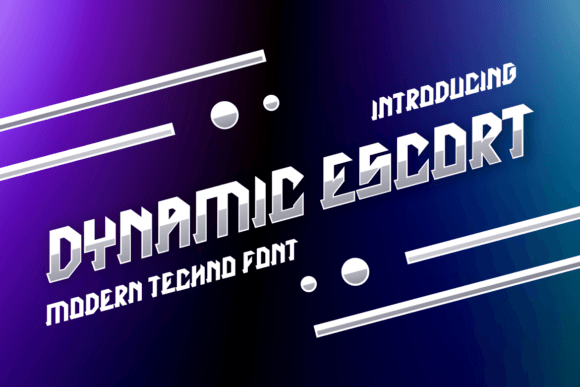
Dynamic Escort: The Revolutionary Font for Creating an Unforgettable Brand Presence
In a world clamoring for attention, your brand needs a voice that cuts through the noise, leaving an indelible mark on your audience's minds. Dynamic Escort, the remarkable display font, empowers you to craft a powerful brand identity that captivates and mesmerizes.
Step into the spotlight with Dynamic Escort, a font that exudes boldness and audacity. Its sharp, geometric lines command attention, while its sleek curves add a touch of sophistication. Whether you're designing product packaging, creating a captivating logo, or crafting a striking poster, Dynamic Escort will elevate your designs to new heights.
Unleash your creativity and explore the endless possibilities of Dynamic Escort. Perfect for headlines, subheadings, and short blocks of text, this font is a versatile chameleon, adapting seamlessly to any project. Its clean and modern aesthetic complements a wide range of design styles, from minimalist to retro.
With Dynamic Escort as your chosen font, your designs will radiate a sense of professionalism and authority. It's the ideal choice for legal documents, contracts, and other formal communications. Let Dynamic Escort convey your message with clarity and impact, leaving a lasting impression on your readers.
But Dynamic Escort isn't just about aesthetics; it's also incredibly user-friendly. Whether you're a seasoned designer or just starting your journey, you'll find Dynamic Escort a dream to work with. Its intuitive design ensures a smooth and seamless creative process, allowing you to focus on bringing your vision to life.